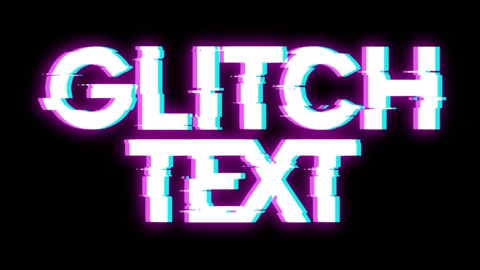
Text with a Glitch effect
Helvetica Font Text Effect
Create a text effect "Helvetica Font" glitch with our online custom font generator.
Enhance your text with a glitchy twist using our innovative font style text effect generator. Create captivating designs with a wide range of glitch-inspired fonts, allowing you to add a unique touch to your projects effortlessly.